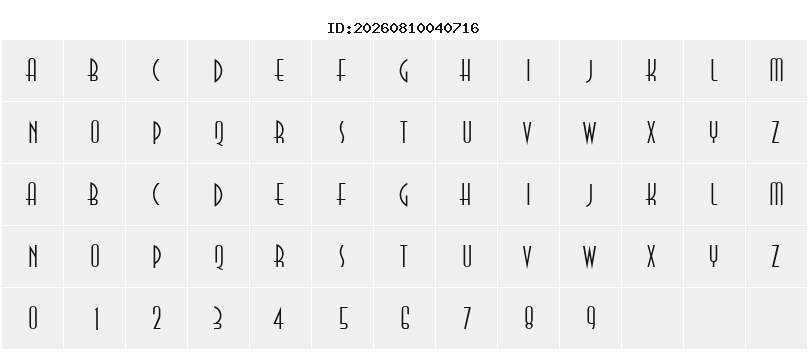
AnnaLightC Preview
• Font Name: AnnaLightC
• Full Font Name: PT Anna Light Cyrillic
• PostScript Name: AnnaLightC
• Manufacturer: ParaGraph Intl
About AnnaLightC.ttf
AnnaLightC.ttf is a modern, elegant sans-serif font designed for ultimate readability and visual harmony. Perfect for branding, headlines, web design, and print materials.